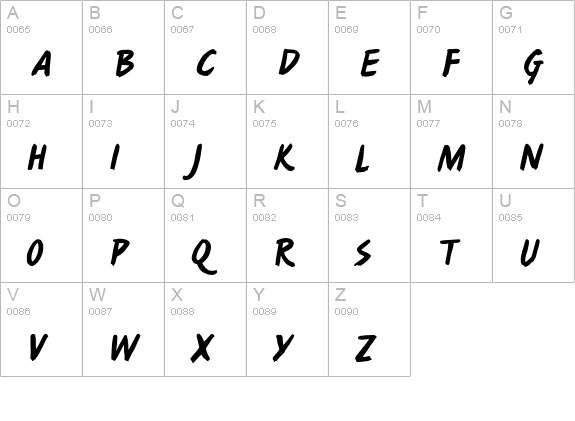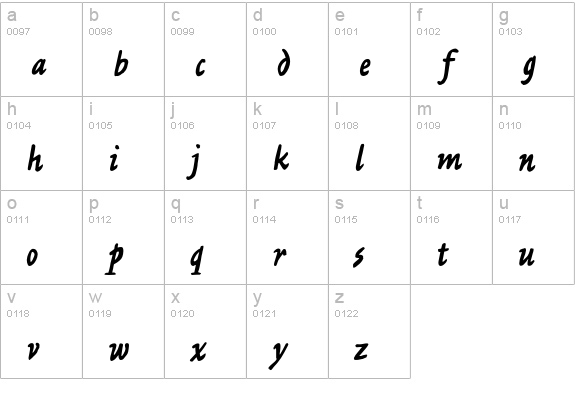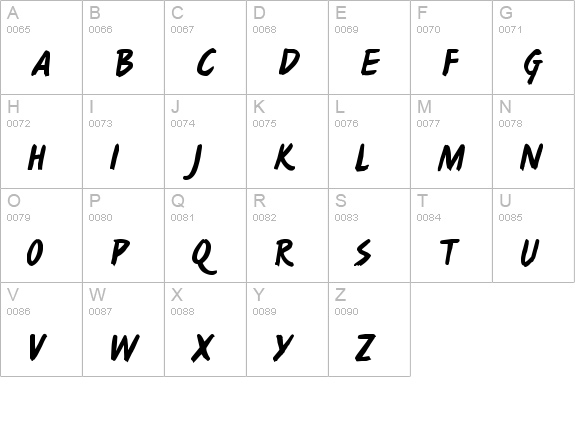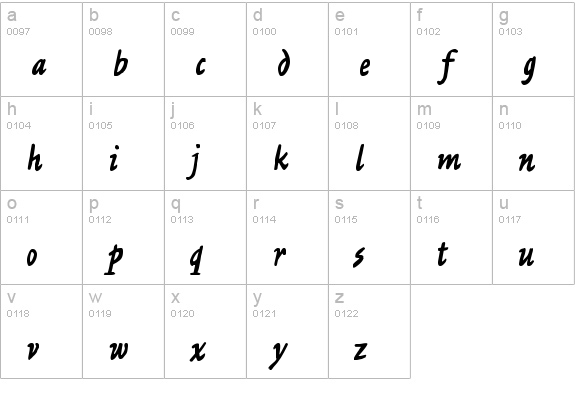
Ashley Script Font Details
Introducing Ashley Script, a stunningly elegant font that effortlessly combines modernity with classic charm. With its beautifully flowing curves and delicate letterforms, Ashley Script is the perfect choice for projects that require a touch of sophistication and grace. This exquisite font is meticulously crafted to ensure each letter is harmoniously connected, creating a seamless and cohesive look. Its versatility allows it to shine in a wide range of design applications, from wedding invitations and branding to elegant packaging and signage. What sets Ashley Script apart is not only its timeless beauty, but also the fact that it is freely available to download at FontsMarket.com. This means that you can add this exquisite font to your collection without breaking the bank. With just a few clicks, you can start incorporating the elegance of Ashley Script into your creative endeavors. Whether you're a professional designer looking to elevate your projects or a casual user in need of a font that exudes sophistication, Ashley Script is the ideal choice. Its legibility and versatility make it suitable for both print and digital designs, ensuring that your message is conveyed with style and grace. Don't miss out on the opportunity to enhance your designs with this breathtaking font. Download Ashley Script for free at FontsMarket.com and elevate your creative projects to new heights.